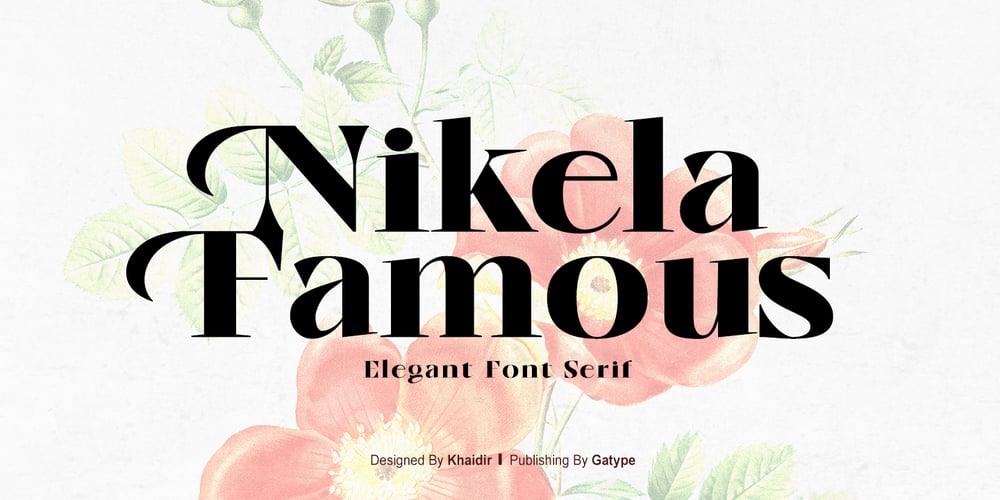
Nikela Famous Font Family was designed by khaidir and published by Gatype. Nikela Famous contains 1 styles and family package options. Nikela Famous is a versatile font with a clean, sleek shape. The overall typeface is strong to bring order and harmony between letters. Best used as Instagram, poster, web design, magazine, logo or product.